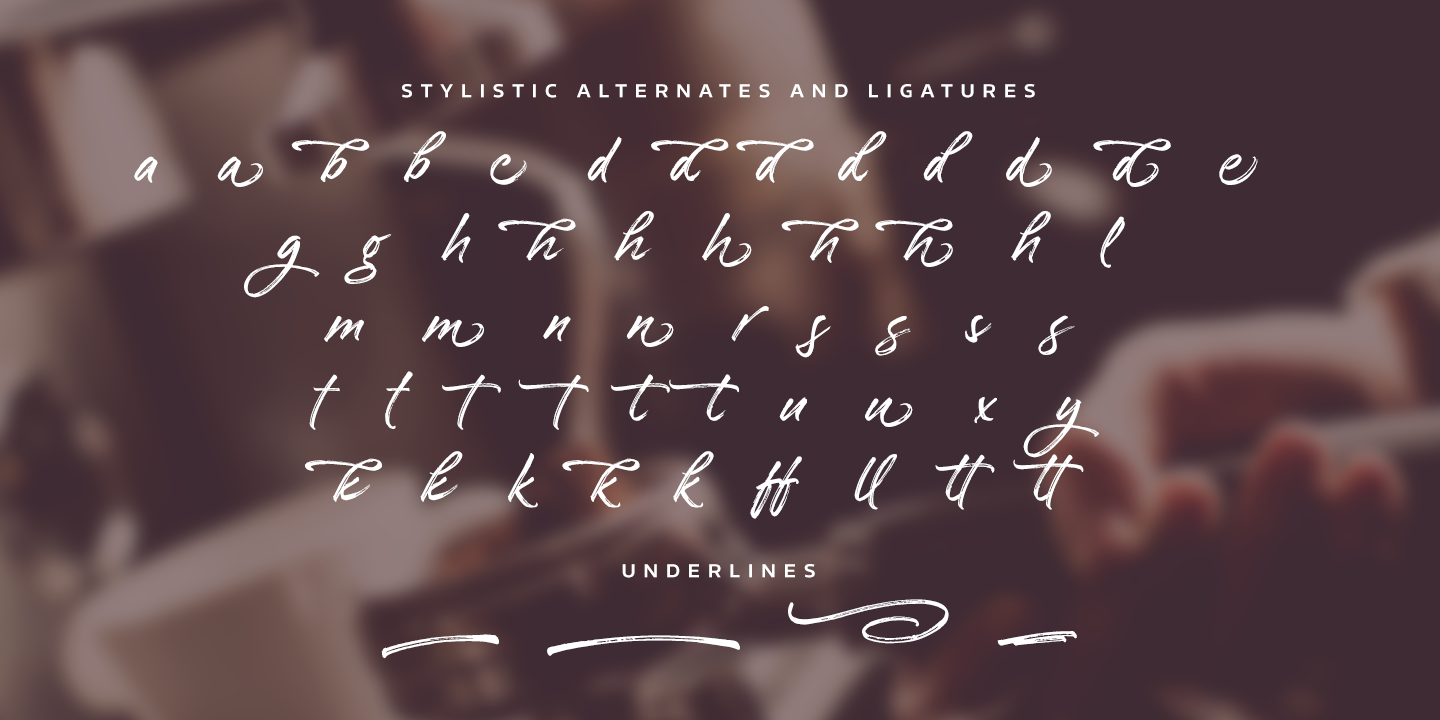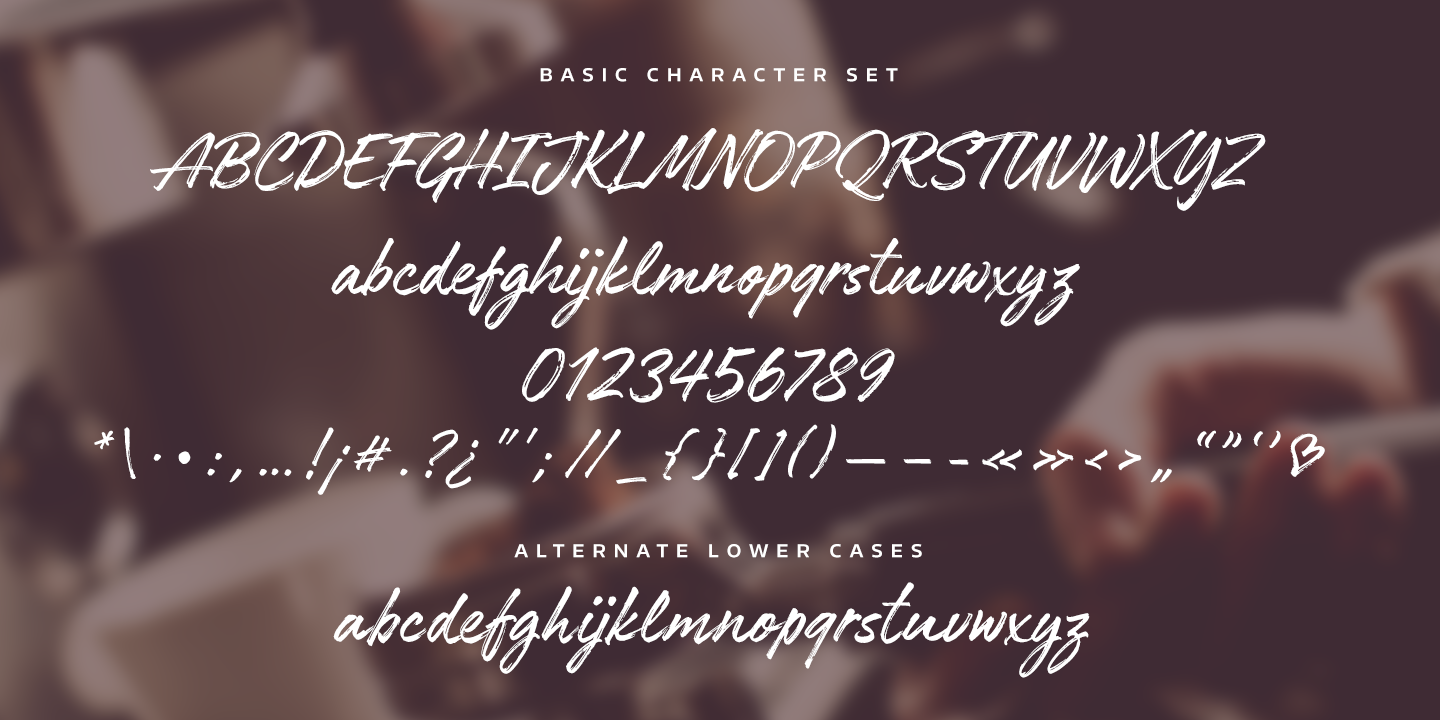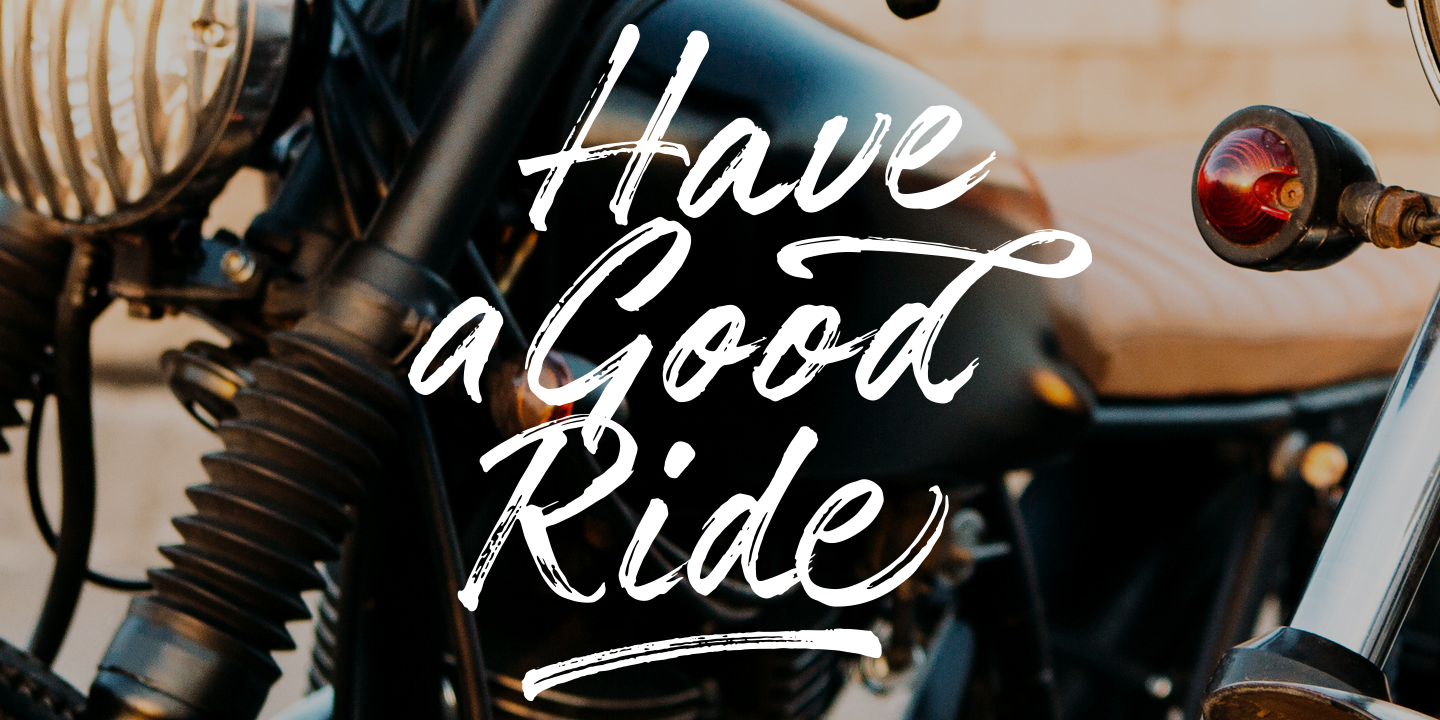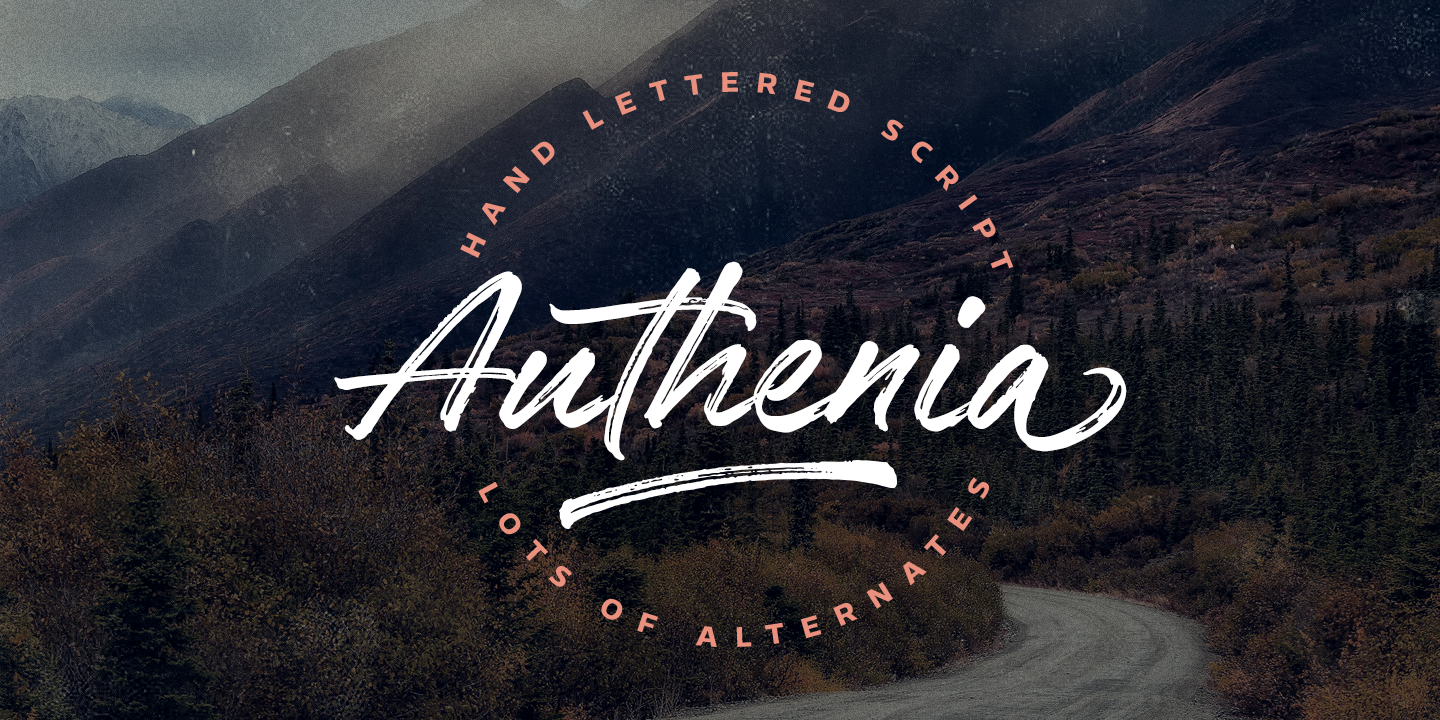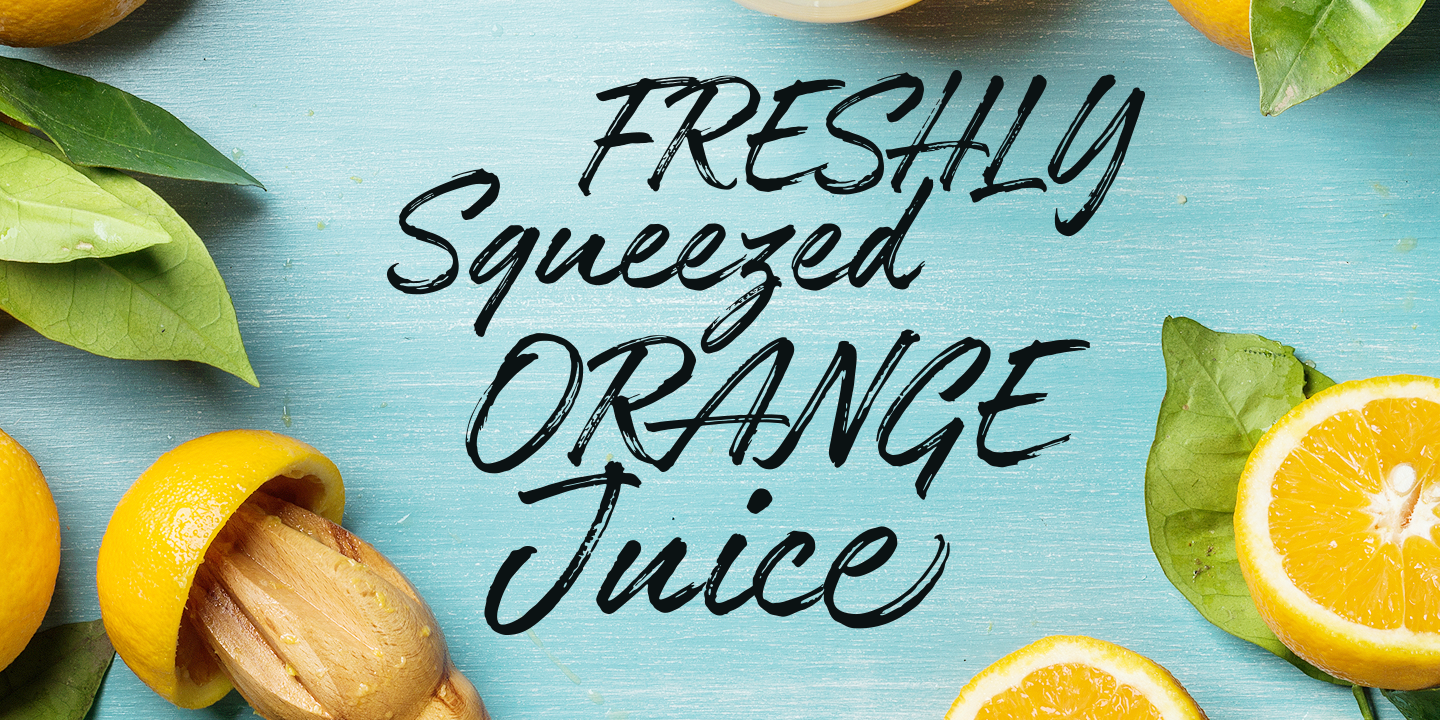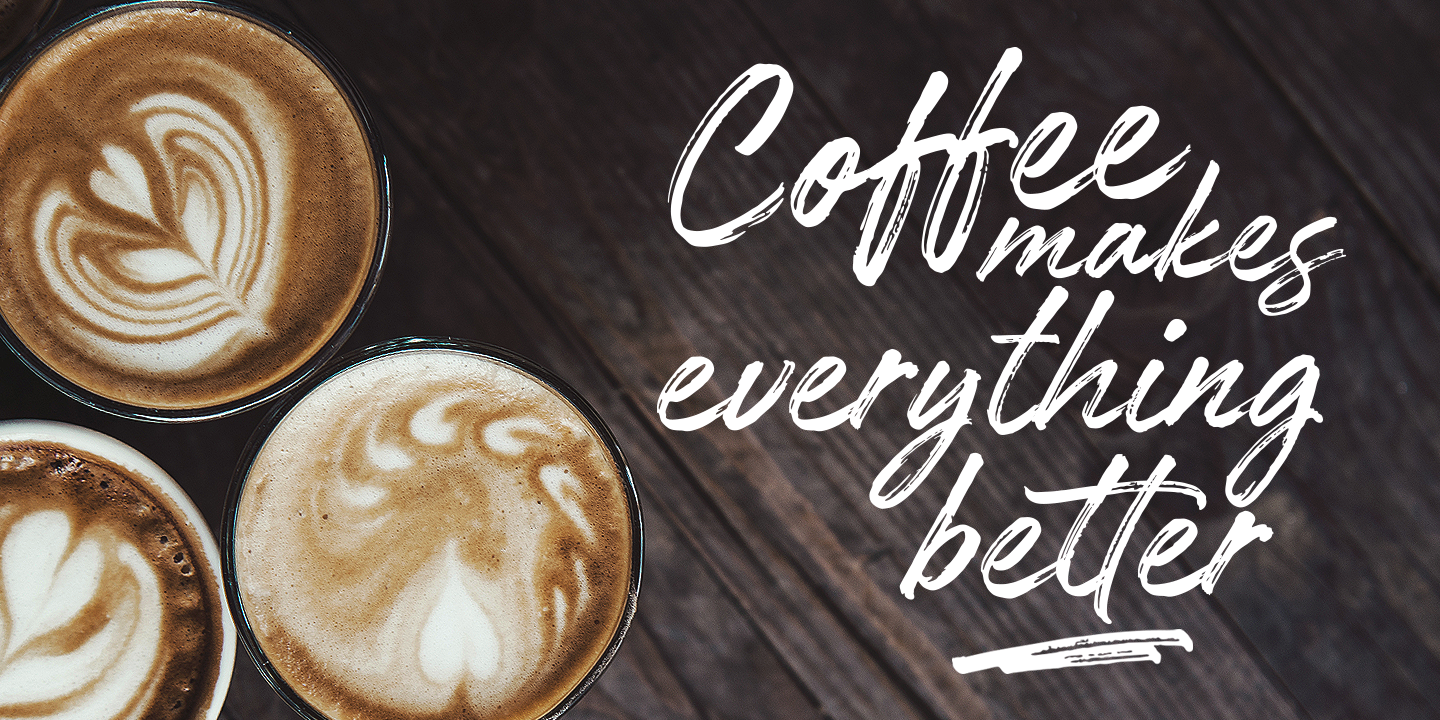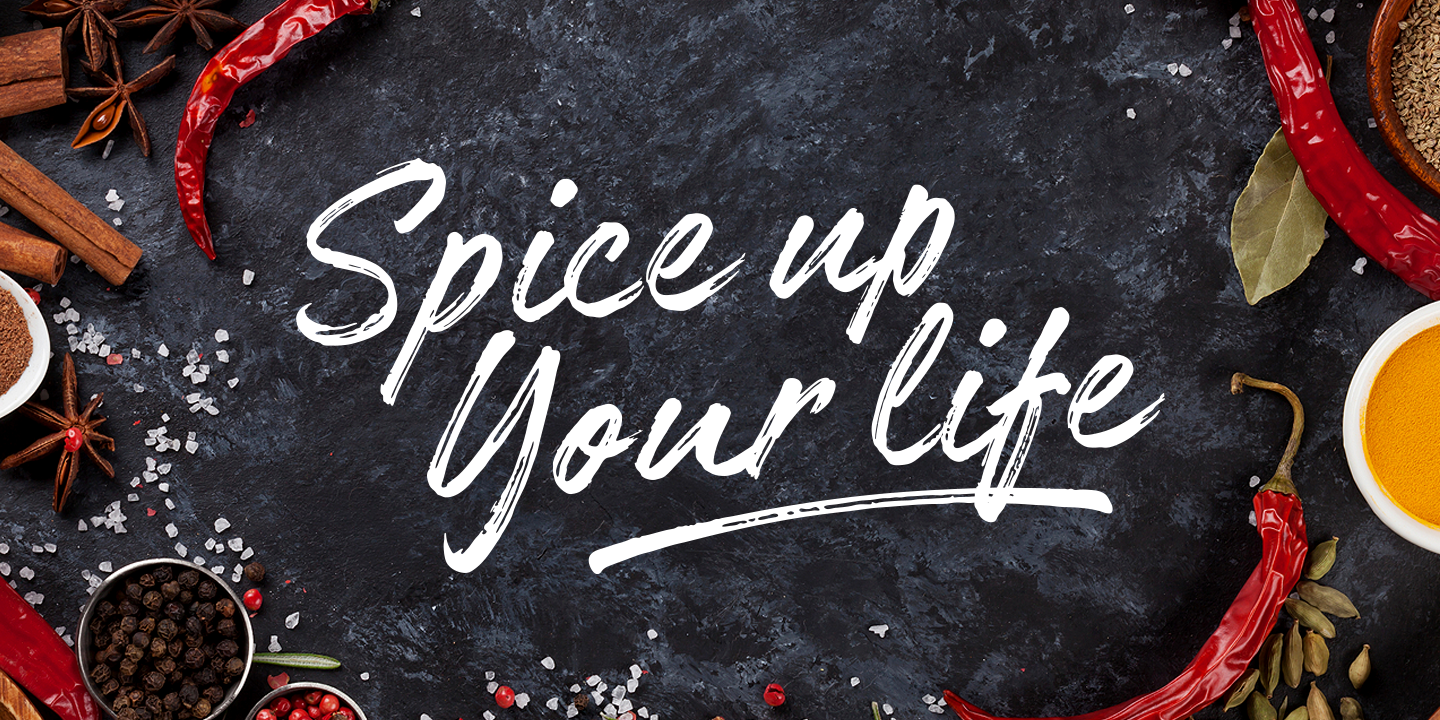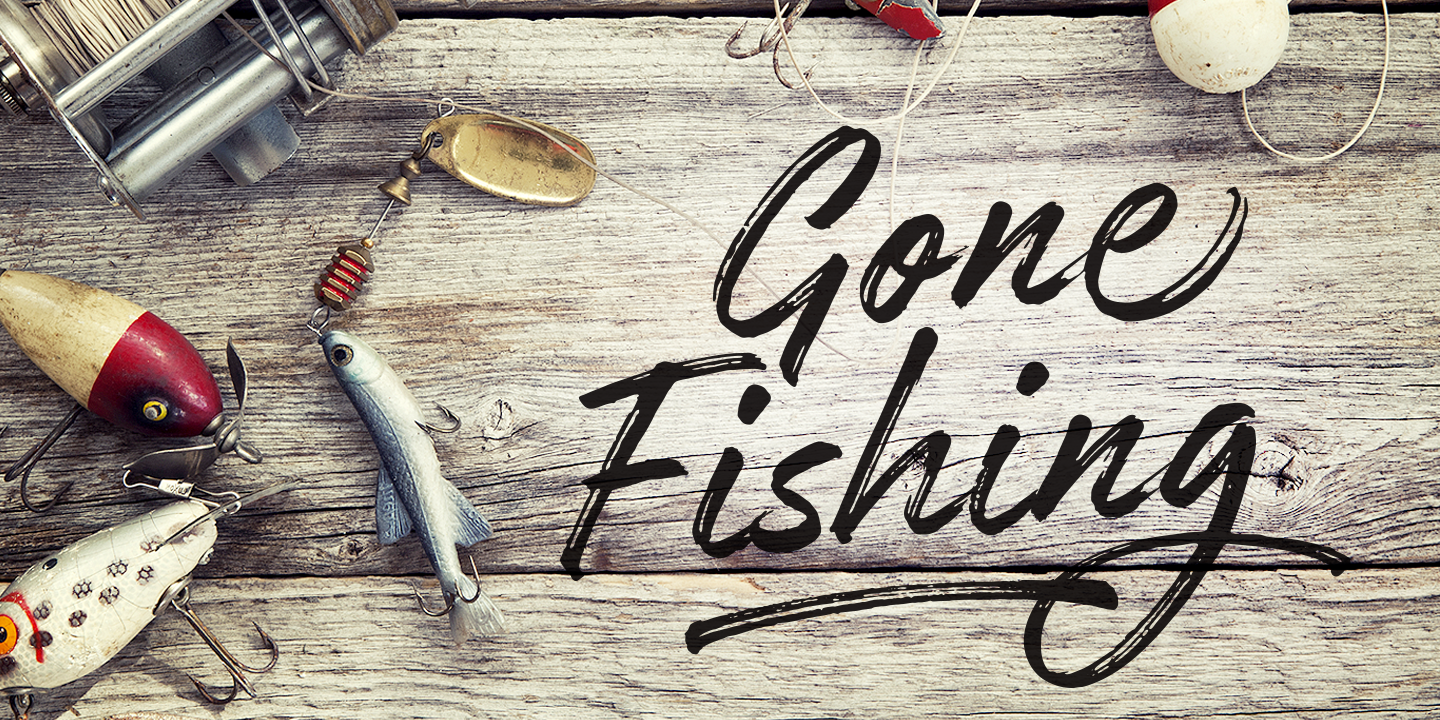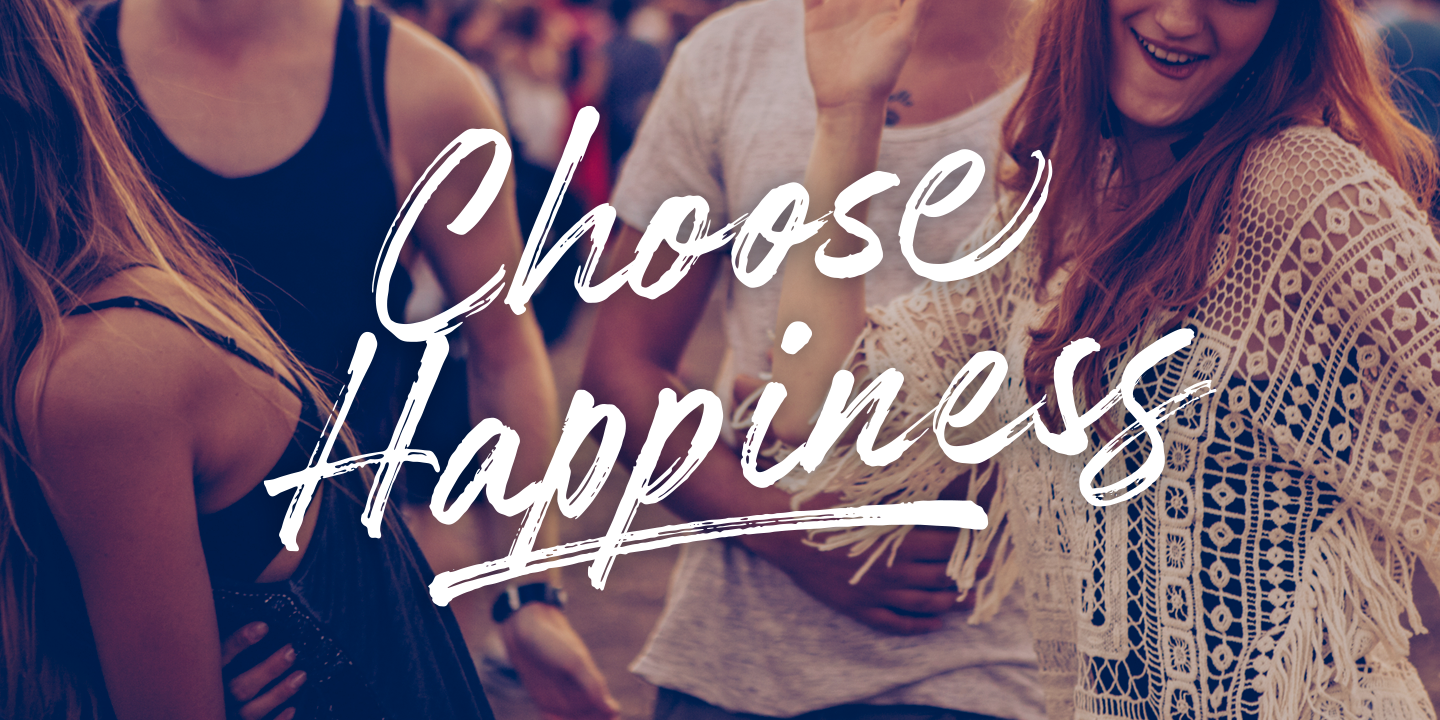
Authenia
Textured Solid
Authenia is a brush script font that has been created with a brush pen and paper, and then carefully converted into vector format. Its texture has been retained to ensure it looks great in both small and large sizes, and gives it a natural, laid-back feel.
To add variation and enhance the natural look of your text, Authenia features two sets of lowercase letters. By enabling Contextual Alternates on the OpenType panel, you can make these sets appear randomly. Additionally, there are several stylistic alternates and underlines available to further enhance your text and design.